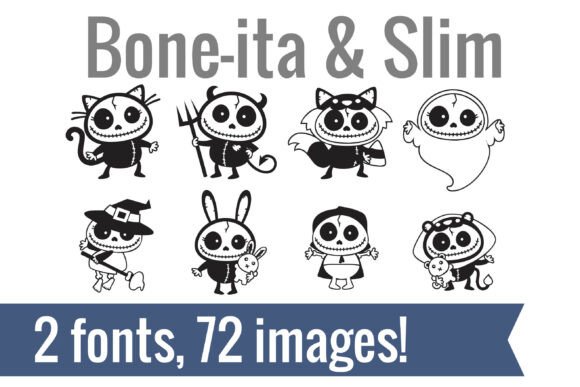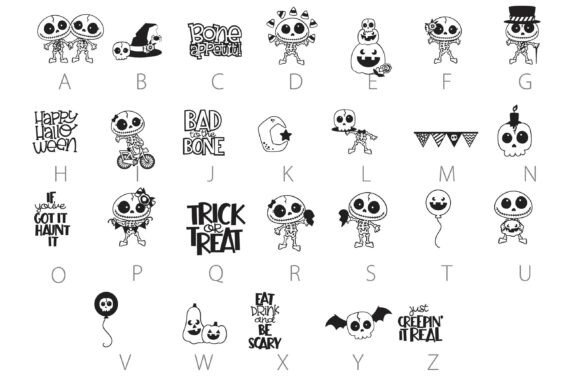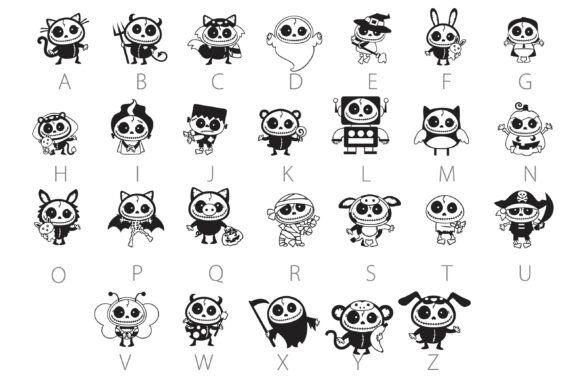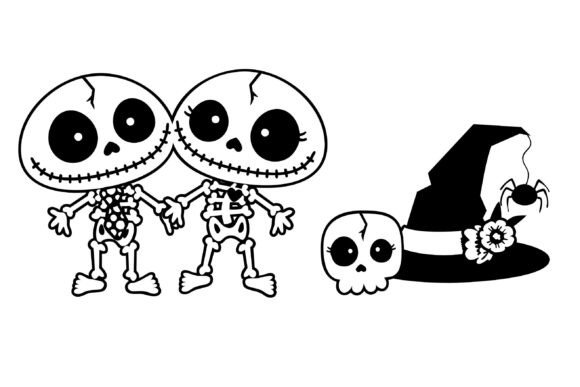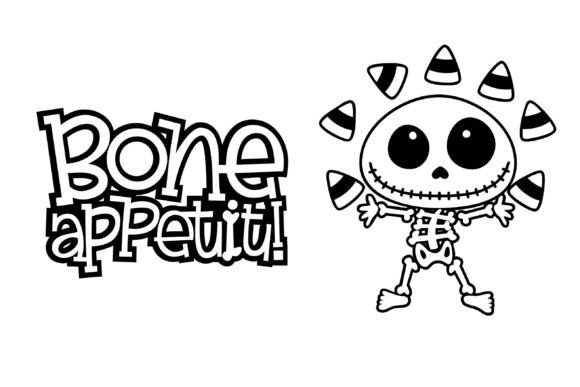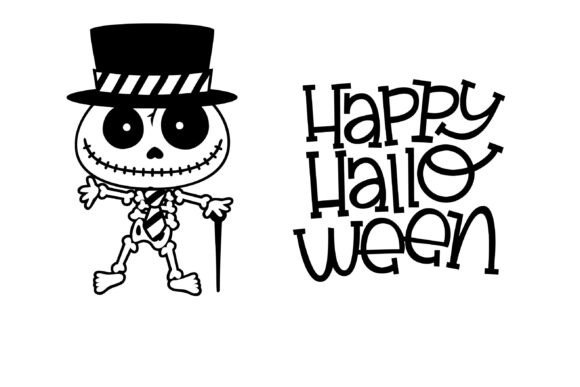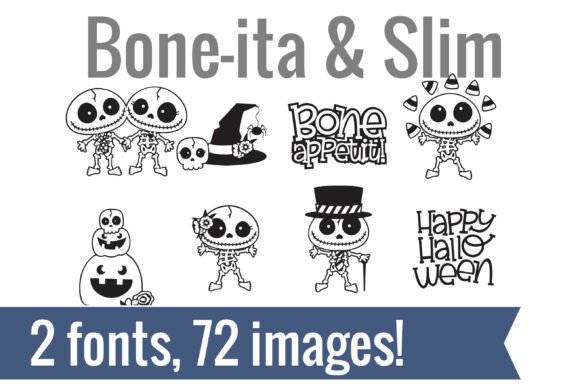
Unlock Endless Creativity with Bone Ita and Slim Font
Have you ever been in the middle of a design project, and suddenly, you realize that it’s missing that special something? You’re not alone! I recall a recent experience where I was working on a Halloween-themed invitation, and I just couldn’t find the perfect skeleton graphics to match my client’s vision. Hours of searching through various font bundles and clip art libraries left me frustrated and exhausted. That’s when I stumbled upon the Bone Ita and Slim Font bundle, which changed the game for me!
What’s the Big Deal About Bone Ita and Slim Font?
This fantastic bundle includes two dingbat fonts, each featuring adorable skeleton crews and costumes. The best part? They’re perfectly coordinated, making it easy to create stunning designs that will leave your audience mesmerized. No more spending hours searching for the right icons and graphics; with Bone Ita and Slim Font, you get dozens of cohesive, scalable designs at your fingertips.
- A complete set of high-quality graphics, all designed to work beautifully together
- ✅ High-quality graphics: The designs are crisp, clear, and perfect for various applications, from vinyl cutting to paper crafts
- ✅ Coordinated designs: The two fonts work seamlessly together, saving you time and effort
- ✅ Versatile: Use them for holiday cards, invitations, planners, and more!
- 🤔 Limited character set: As dingbat fonts, they might not have the same character range as regular fonts
The Bone Ita and Slim Font bundle was created by a team of designers who wanted to bring a touch of whimsy and playfulness to the world of typography. Inspired by the magic of Halloween and the beauty of skeleton art, they crafted these two unique fonts to help creatives like you bring their imagination to life.